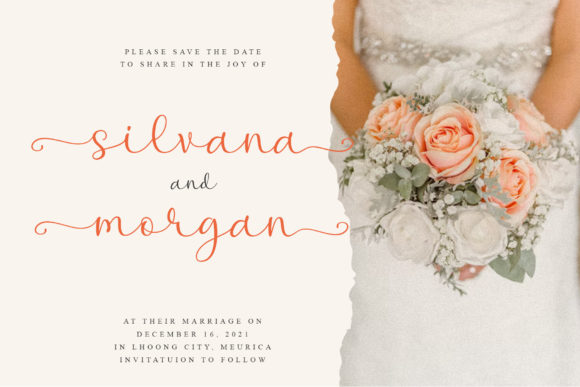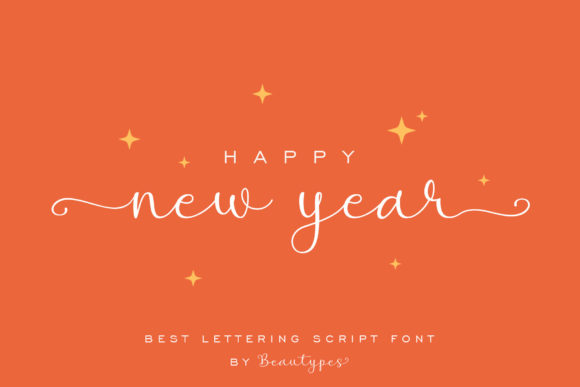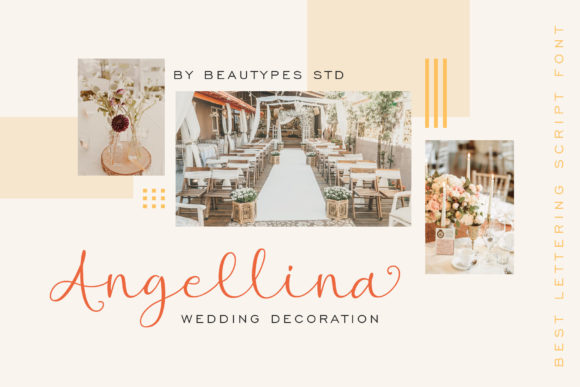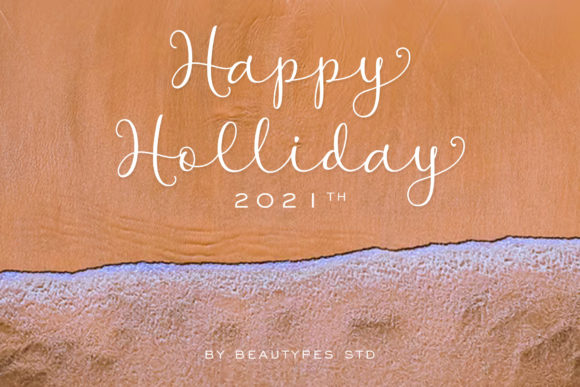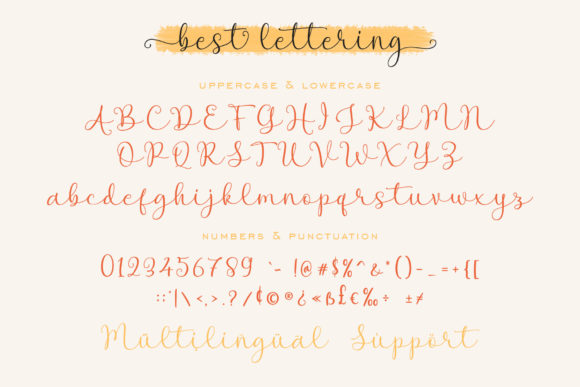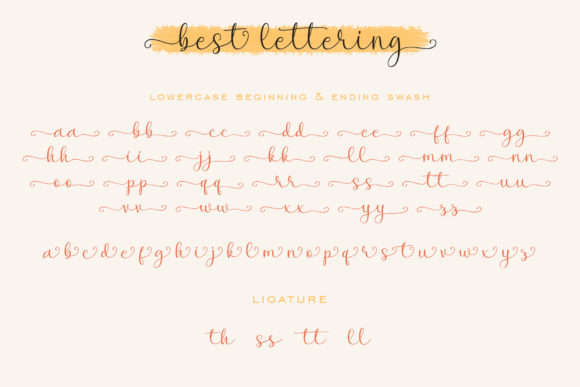
Discover the Best Lettering Font for Your Design Projects
Are you tired of using the same old fonts for your design projects? Do you want to add a touch of romance and elegance to your creations? Look no further than the Best Lettering Font, a light and fresh handwritten font that is sure to inspire.
What Makes Best Lettering Font So Special?
Best Lettering is a beautifully crafted font that exudes a sense of romance and sophistication. Its light and fresh feel makes it perfect for a wide range of design projects, from wedding invitations and stationery to branding and packaging.
One of the standout features of Best Lettering Font is its PUA (Private Use Area) encoding. This means that you can access all of the glyphs and swashes with ease, giving you complete creative control over your designs.
The Benefits of Using Best Lettering Font
So why should you choose Best Lettering Font for your design projects? Here are just a few benefits:
- Unique and eye-catching: Best Lettering Font is a one-of-a-kind font that will set your designs apart from the crowd.
- Romantic and elegant: The font’s romantic feel makes it perfect for designs that require a touch of sophistication and glamour.
- Versatile: Best Lettering Font can be used for a wide range of design projects, from print to digital.
- Easy to use: The font’s PUA encoding makes it easy to access all of the glyphs and swashes, even for designers who are new to using handwritten fonts.
How to Use Best Lettering Font in Your Designs
Using Best Lettering Font in your designs is easy. Here are a few tips to get you started:
- Pair it with other fonts: Best Lettering Font pairs well with a variety of other fonts, including serif and sans serif fonts.
- Experiment with different sizes: The font’s light and fresh feel makes it perfect for use at a variety of sizes, from large headings to smaller body text.
- Take advantage of the swashes: The font’s swashes can add a touch of elegance and sophistication to your designs.
Design Project Ideas for Best Lettering Font
Best Lettering Font is perfect for a wide range of design projects, including:
- Wedding invitations and stationery: The font’s romantic feel makes it perfect for wedding designs.
- Branding and packaging: Best Lettering Font can add a touch of elegance and sophistication to your brand’s packaging and marketing materials.
- Social media graphics: The font’s light and fresh feel makes it perfect for use in social media graphics, such as Instagram posts and Facebook graphics.
- Blog and website design: Best Lettering Font can add a touch of personality and style to your blog or website.
| Font Name | Best Lettering Font |
| Author | Beautypes |
Best Lettering Font is a beautiful and versatile font that is perfect for designers and crafters who want to add a touch of romance and elegance to their designs. With its PUA encoding and light and fresh feel, it’s easy to use and perfect for a wide range of design projects. Whether you’re designing wedding invitations, branding materials, or social media graphics, Best Lettering Font is sure to inspire.